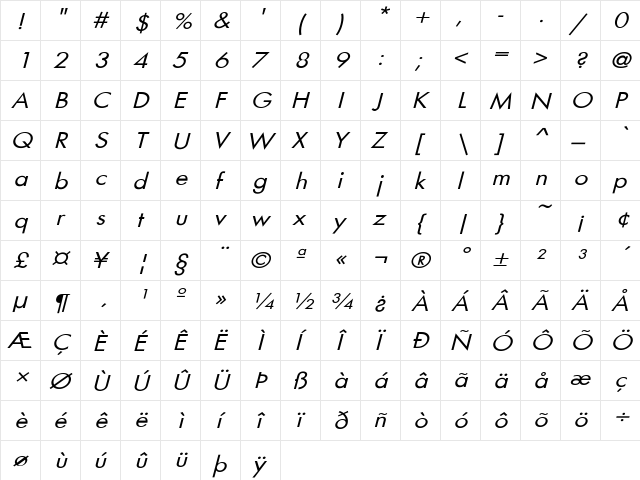
FuturaExtObl-Normal Regular
Design Context for FuturaExtObl-Normal Typeface
FuturaExtObl-Normal has a distinctly futuristic character, with geometric precision and clean angles that feel at home in technology, gaming, and sci-fi contexts.
Pro Tip: Use FuturaExtObl-Normal in combination with a neutral sans for body text. Let it define the brand voice in headlines while keeping reading comfortable elsewhere.